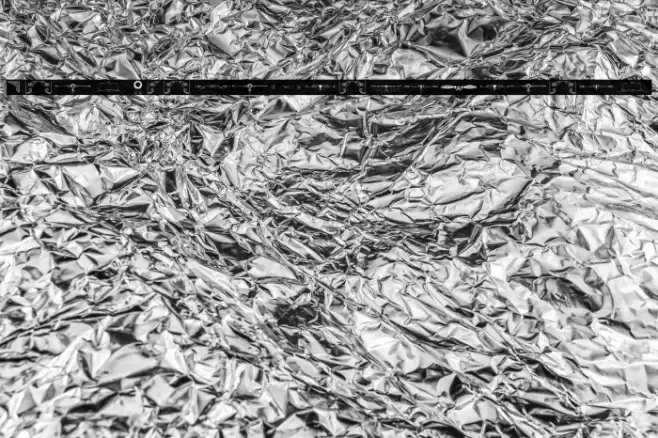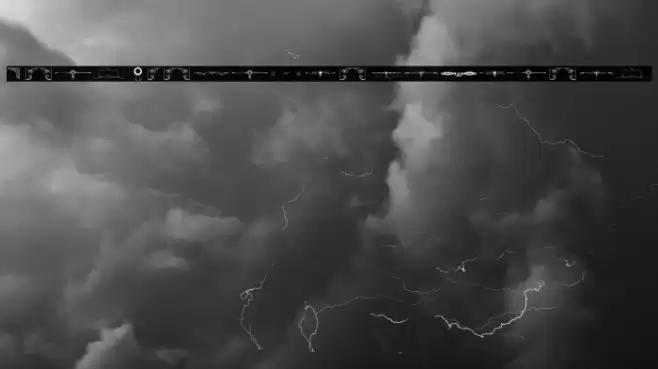
Honey Moon_PersonalUseOnly Font
Honey Moon_PersonalUseOnly Description
A decorative font consisting entirely of ornate borders, flourishes, dividers, banners, and embellishments, with a whimsical and elegant hand-drawn style. The glyphs are highly detailed, featuring swirls, curls, and vintage motifs, suitable for creating frames or accentuating text in a sophisticated manner.
Ornate decorative elements and flourishes in a hand-drawn style from Regular fonts.
- Proposed Projects: Wedding invitations, greeting cards, certificates, scrapbooking, vintage-themed posters, decorative dividers for print or web.
- Overall Style: Decorative, Vintage, Elegant
- Use Case: Borders, Dividers, Accents, Invitations